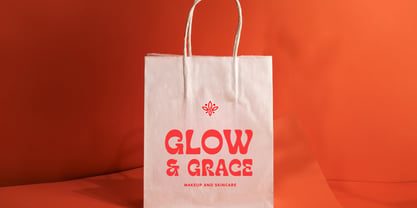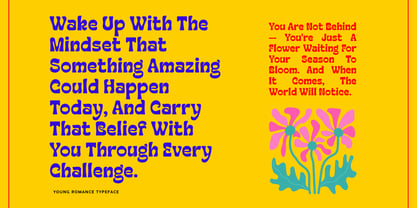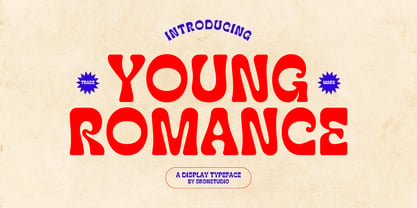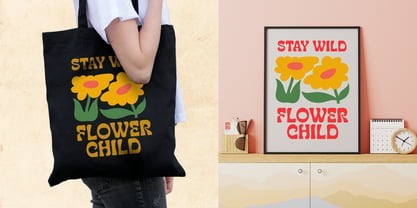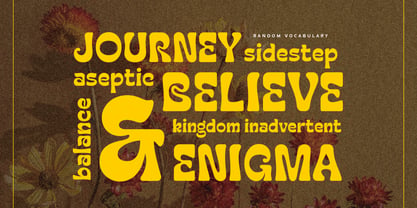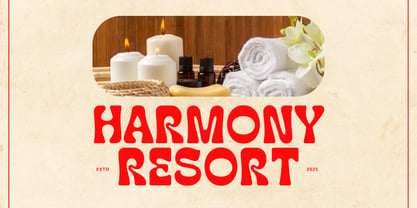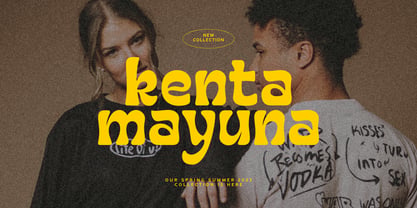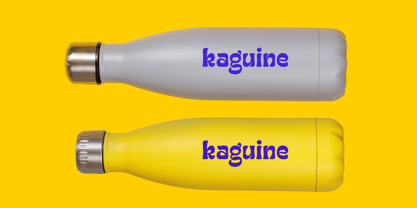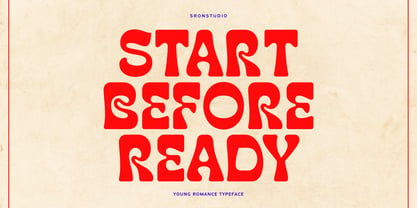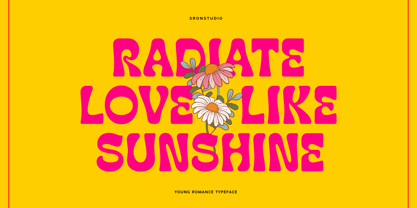
Young Romance
by Sronstudio
The Young Romance Font Family was designed by Muhamad Yusron Billah and published by Sronstudio. Young Romance contains 1 styles. More about this family
Young Romance is a charming retro display font that brings nostalgic flair and vintage vibes to your designs. With bold curves, playful letterforms, and a groovy personality, this font captures the essence of classic 70s and 80s aesthetics. Perfect for posters, album covers, packaging, branding, and anything that craves a touch of retro romance.
- Uppercase & lowercase characters
- Numerals & punctuation
- Multilingual support
Designers: Muhamad Yusron Billah
Foundry: Sronstudio